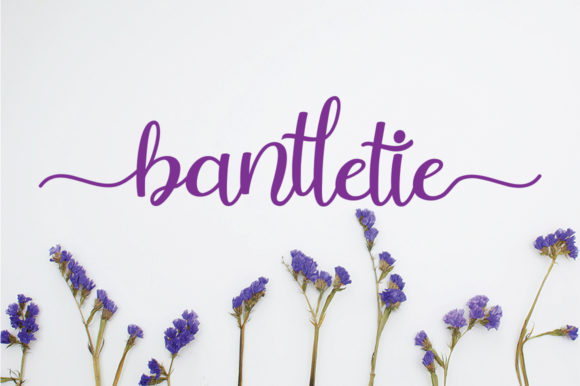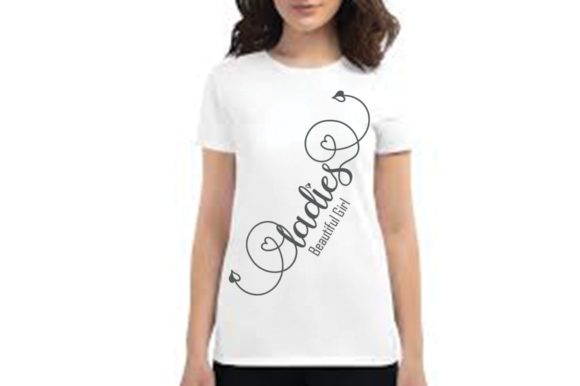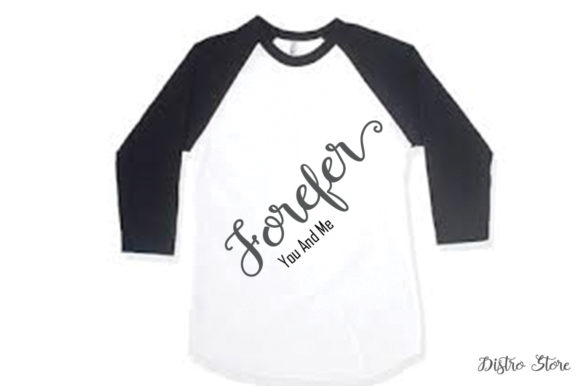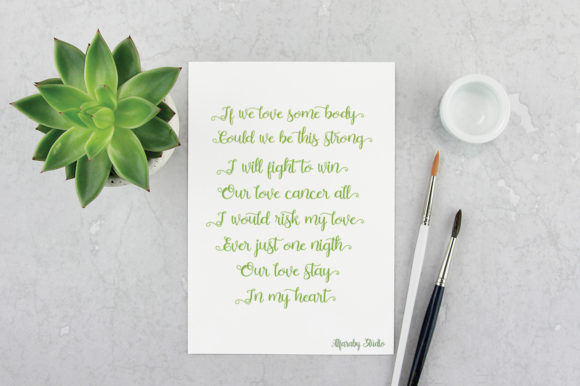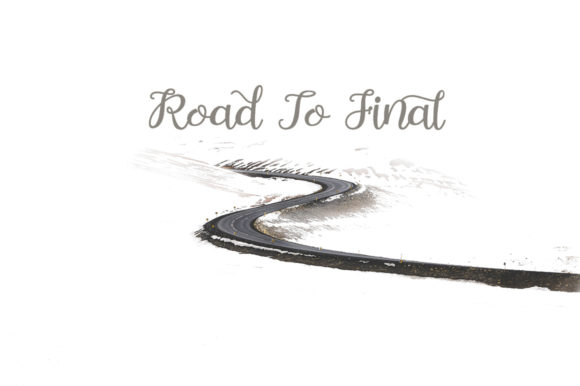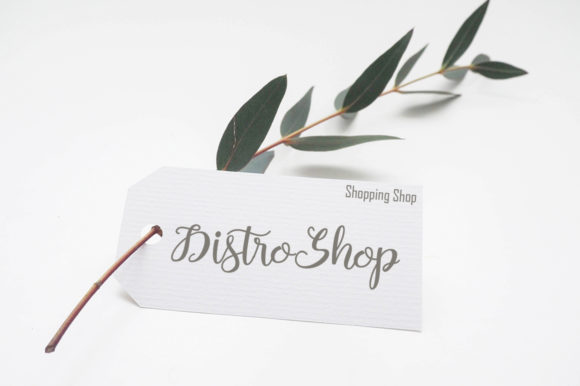
Time for a Holliday: Falling in Love with this Beautiful Script
Have you ever been working on a design project and suddenly, a spark of creativity hits you? You see the perfect combination of colors, shapes, and typography, and you just know you’re onto something special. For designers, those moments are the ones that make all the hard work worth it. And when it comes to adding a touch of romance to your designs, there’s one beautiful script that’s sure to sweep you off your feet.
Meet the Holliday Font, a stunning script designed to add a heartwarming touch to any design. With its lovely heart-themed swashes, this font is perfect for creating romantic artworks, wedding invitations, and more. Whether you’re a professional designer or a creative enthusiast, the Holliday Font is a valuable addition to your toolkit. Its versatility and charm make it a must-have for anyone looking to add a touch of whimsy and romance to their designs.
Holiday Font Key Features
- Unique Characteristics: Holiday Font features a playful, handwritten style with a mix of uppercase and lowercase letters, adding a personal touch to designs.
Holliday Font Review
I recently had the chance to work with the Holliday font, and I must say, it’s a unique and intriguing addition to any design project. Here are my honest thoughts on this font.
- Playful and whimsical feel: Holliday font has a distinct personality that adds a touch of magic to your designs.
- Excellent for creative projects: Its quirky nature makes it perfect for artistic, illustrative, or expressive projects.
- High-quality rendering: The font is well-designed, and the glyphs are clean and legible, making it a pleasure to work with.
- Not ideal for formal or corporate projects: Holliday font’s playful nature might not be suitable for professional or formal settings.
- May not be readable in smaller sizes: Due to its unique design, the font can be challenging to read when scaled down.
Overall, I think Holliday font is a fantastic addition to any design toolkit. While it may not be suitable for every project, it’s a great choice for creative and artistic endeavors. With its unique personality and high-quality rendering, Holliday font is sure to bring a touch of magic to your designs.
Tips for Getting the Most Out of Holliday Font
Here are some tips to help you get the most out of Holliday Font:
- Use it for titles and headings to add a touch of elegance.
- Pair it with a serif font for a classic look.
Holliday Font is perfect for:
- Formal event announcements.
- Magazine and newspaper headlines.